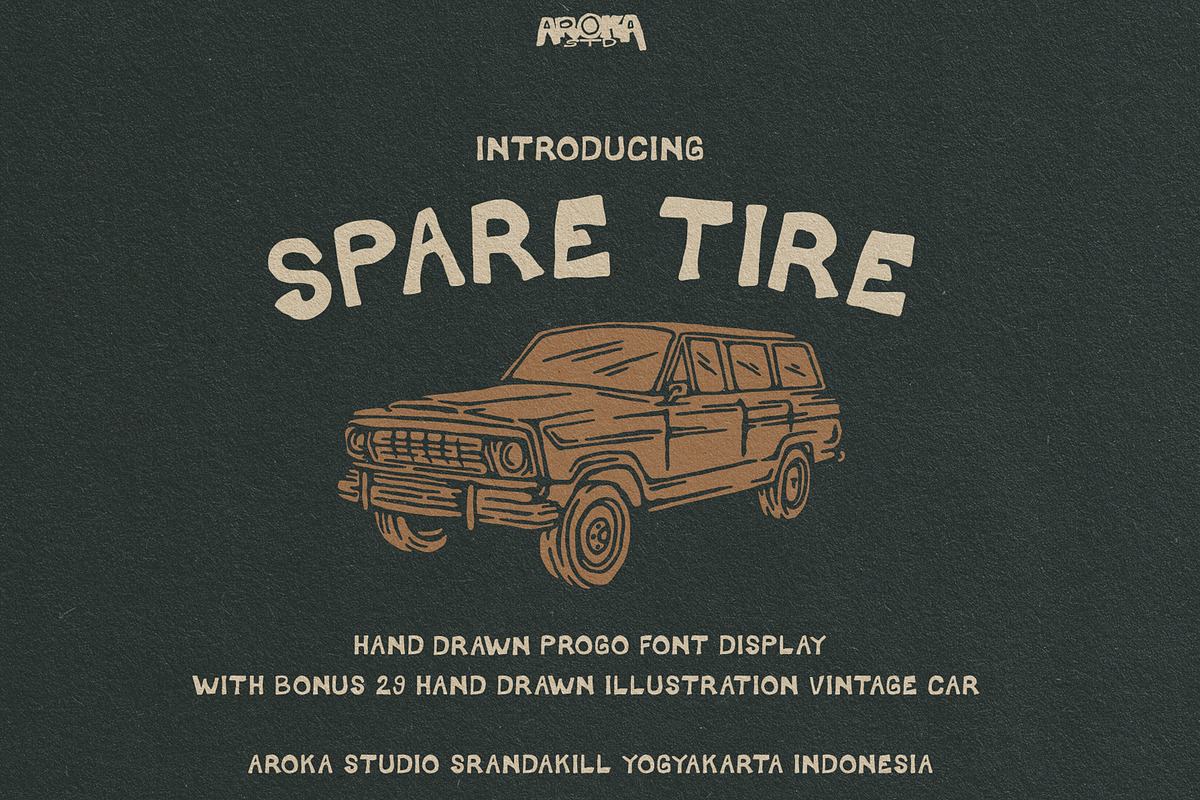
Vintage Car & Progo Font Free Download
Please note, you must purchase this font for commercial use. However, you can easily download Vintage Car & Progo Font Free Download for personal use and testing purposes. Vintage Car & Progo Font is a stylish and retro-inspired typeface that combines classic car-themed designs with modern flair. Perfect for vintage branding, automotive logos, posters, and advertisements, this font features bold, dynamic letterforms that evoke the spirit of classic cars and vintage design. Whether you're creating a logo for a classic car business, a retro-themed event, or a custom automotive design, Vintage Car & Progo Font Free Download will add a unique, nostalgic touch to your project. Download Vintage Car & Progo Font Free Download today and explore its potential before deciding on a commercial license.